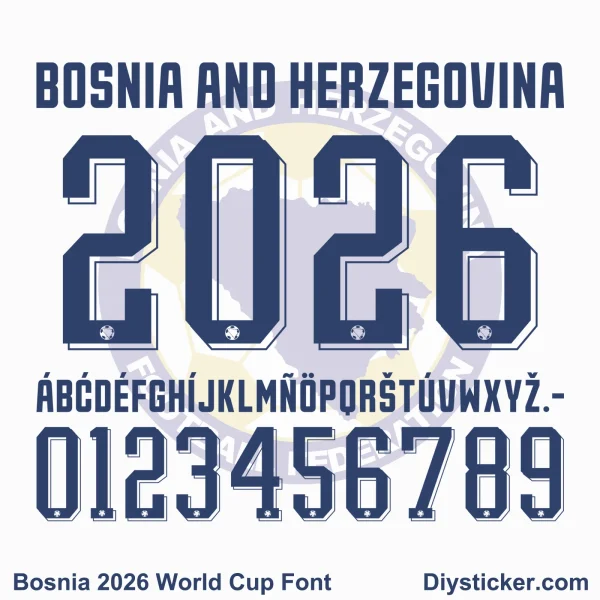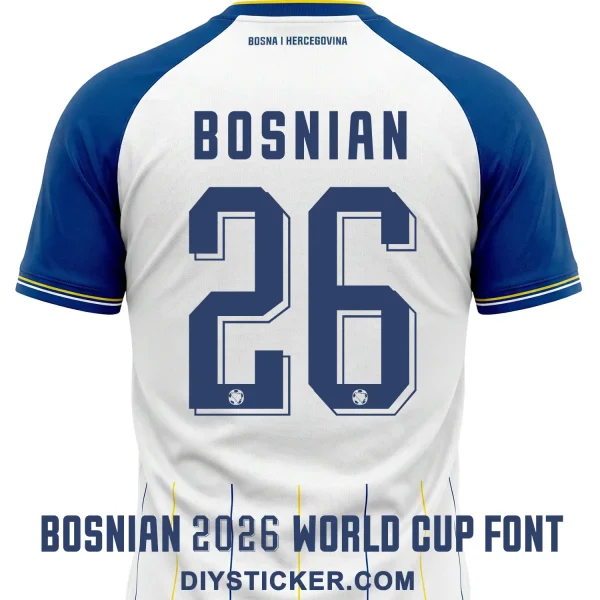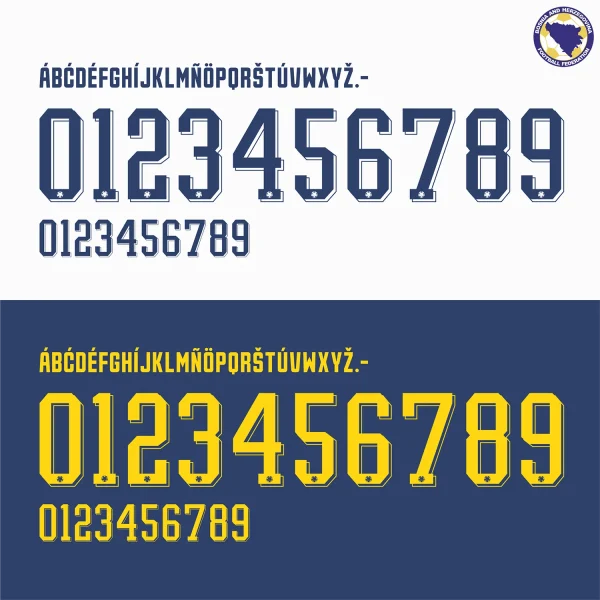
Bosnia 2026 World Cup Font – Home/Away Jersey
Bring ultimate authenticity to your international gear with the official-style Bosnia National Team 2026 World Cup Font. Precision-engineered for professional football kit restoration, DIY shirt customizing, and sports graphic design. This premium vector pack features the bold, dynamic typography styled for the Bosnia 2026 World Cup home and away kits.
- Complete Set: Includes full A-Z letters (with special characters like Á, Ć, É, Ñ, Ö, Š, Ü, Ž) and small/large numbers 0-9 featuring the integrated federation design detail.
1. Upgrade Your Gear with the Authentic Bosnia 2026 World Cup Font Kit
For football shirt collectors, DIY enthusiasts, and custom printing shops, achieving historical accuracy is everything. The new Bosnia National Team Font Kit 2026 World Cup delivers the exact visual identity chosen for the Dragons’ iconic jerseys on the world stage. Whether you are working on a vintage-style throwback or upgrading a brand-new match kit, our vectors offer unmatched line precision.
Every letter and number in this collection has been meticulously redrawn and digitized from official match references. The distinct, geometric typography pairs perfectly with the bold numbers, featuring crisp internal lines and a miniature federation detail at the base. By utilizing this professional Bosnia National Team 2026 World Cup Font Kit , your sports apparel customization projects will stand up to the closest scrutiny, making it a vital asset for any premium jersey restoration workflow.